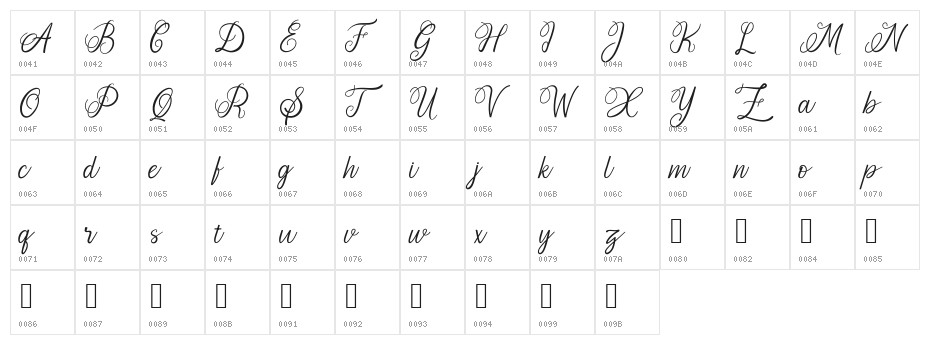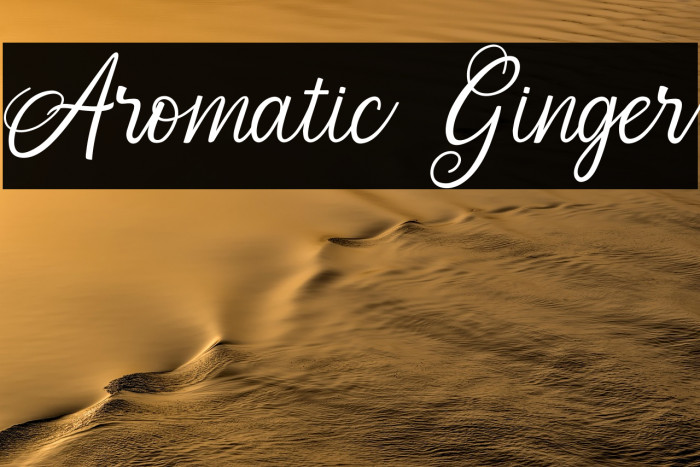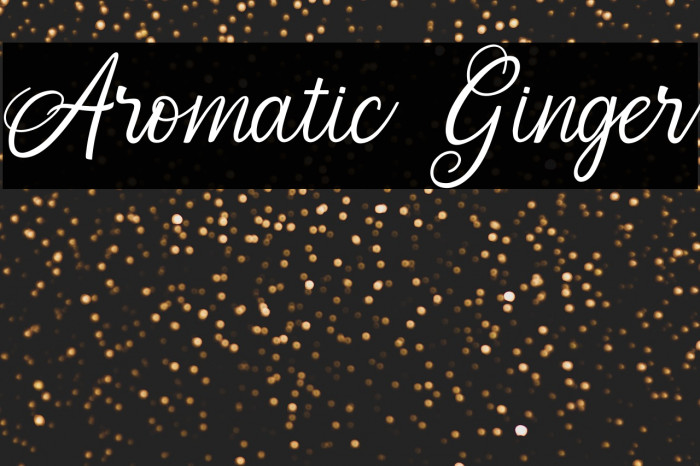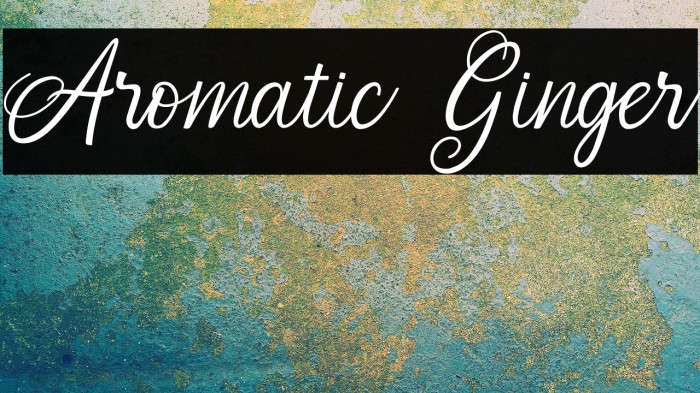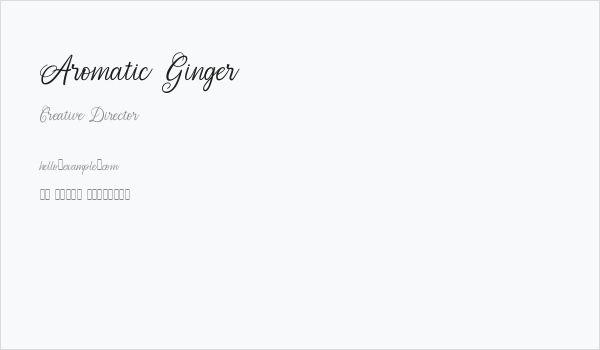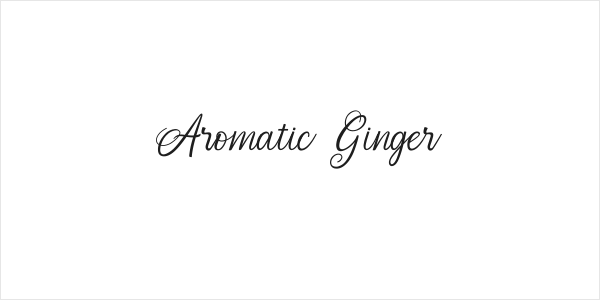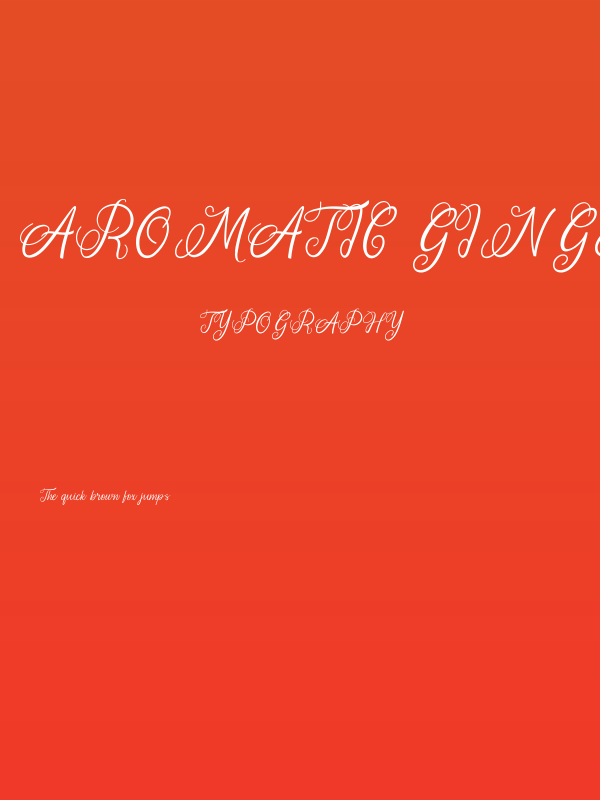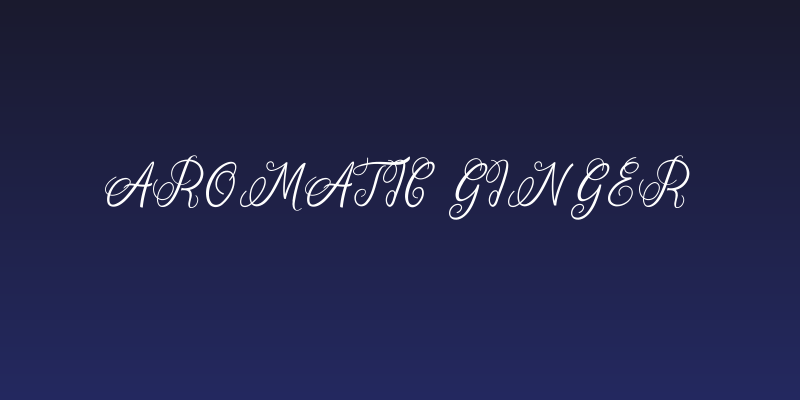
Aromatic Ginger Font
Aromatic Ginger Description
This font exudes elegance and sophistication with its flowing, cursive style. The uppercase letters are characterized by their intricate loops and swirls, creating a sense of movement and grace. The lowercase letters maintain a consistent flow, with smooth connections between each character, enhancing readability while retaining a stylish flair. The font's overall appearance is delicate yet impactful, making it suitable for projects that require a touch of class and refinement. The special characters are seamlessly integrated, maintaining the font's cohesive aesthetic.
| Proposed Projects | Ideal for wedding invitations, luxury branding, and elegant stationery design. |